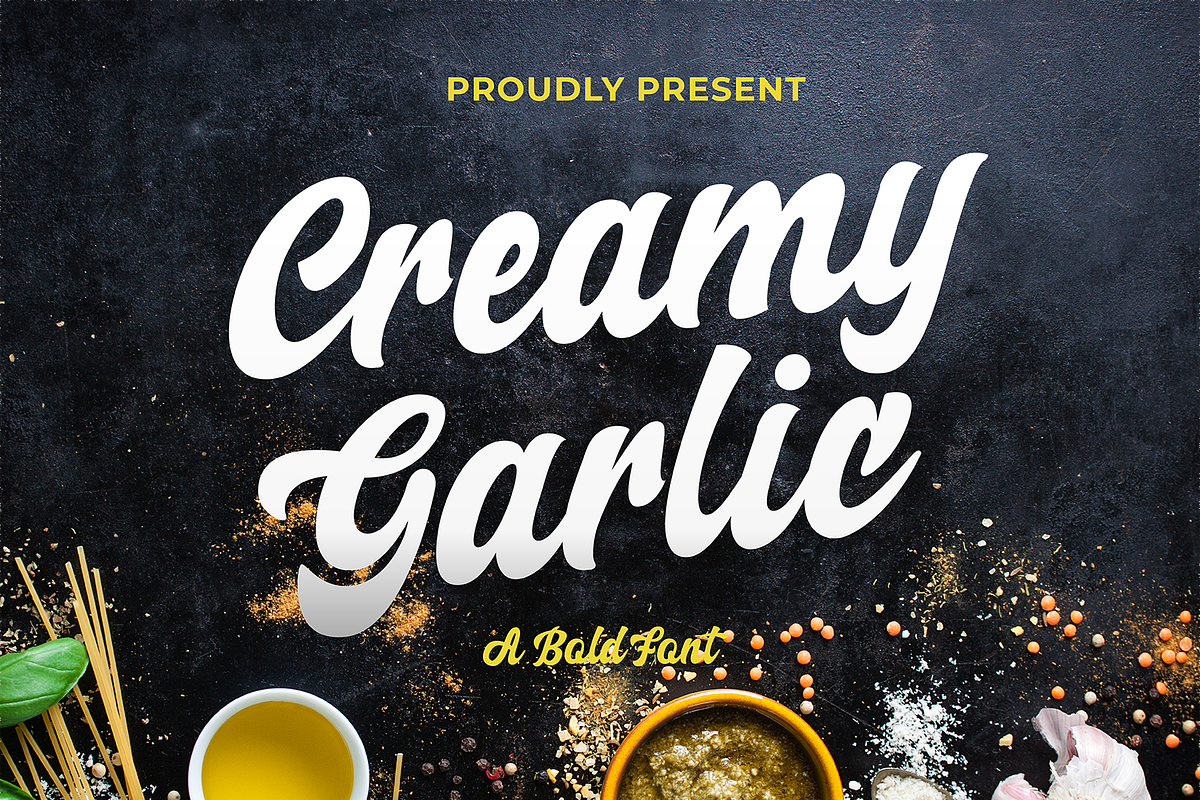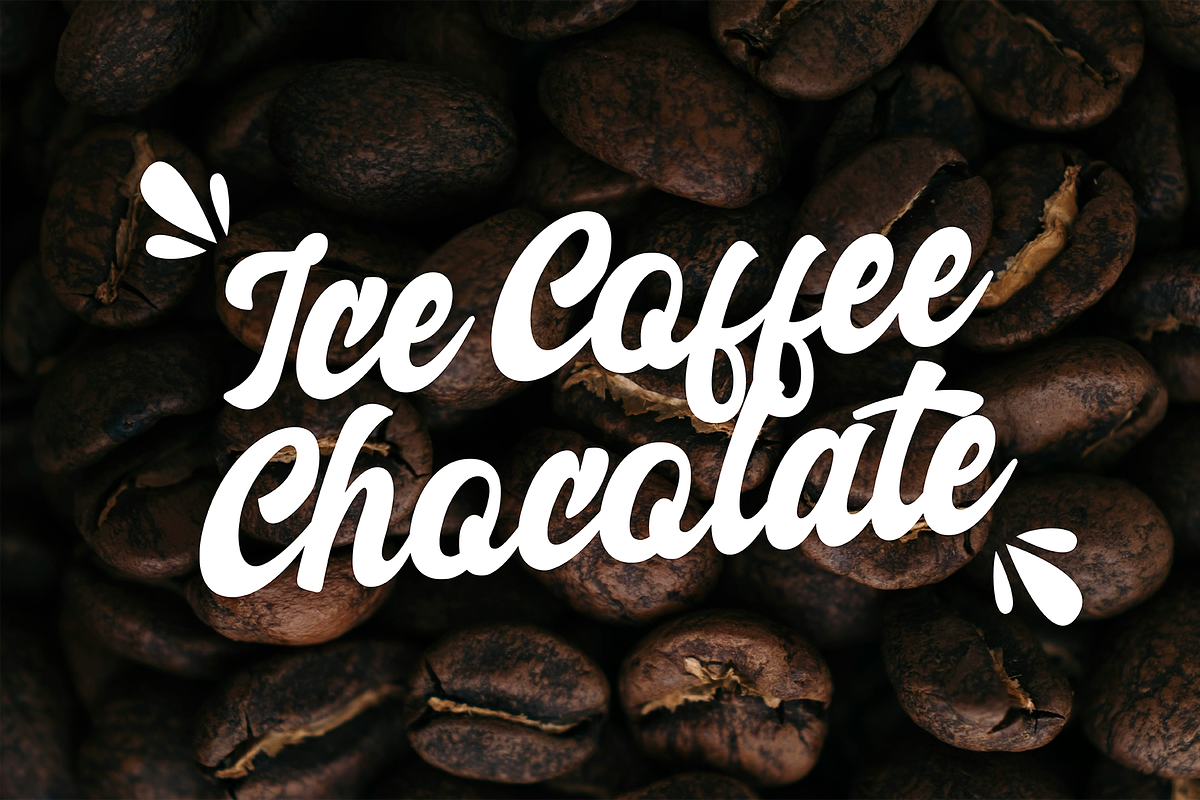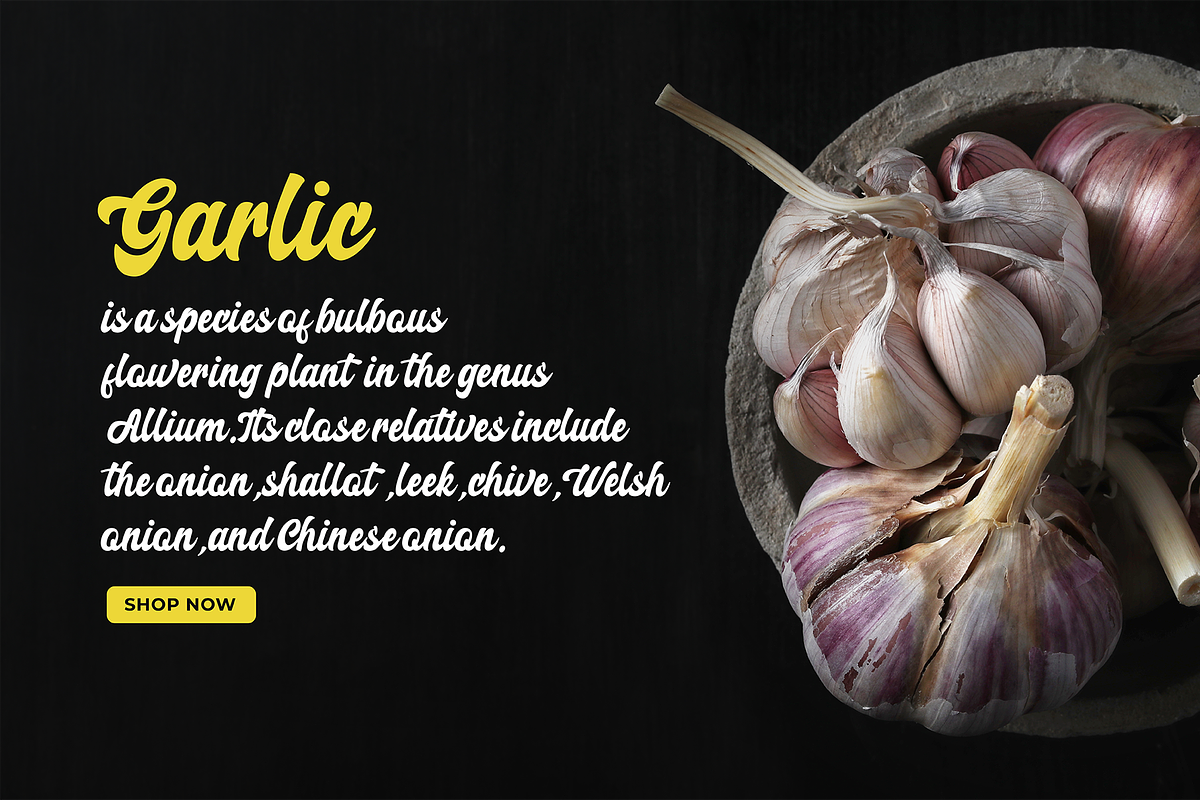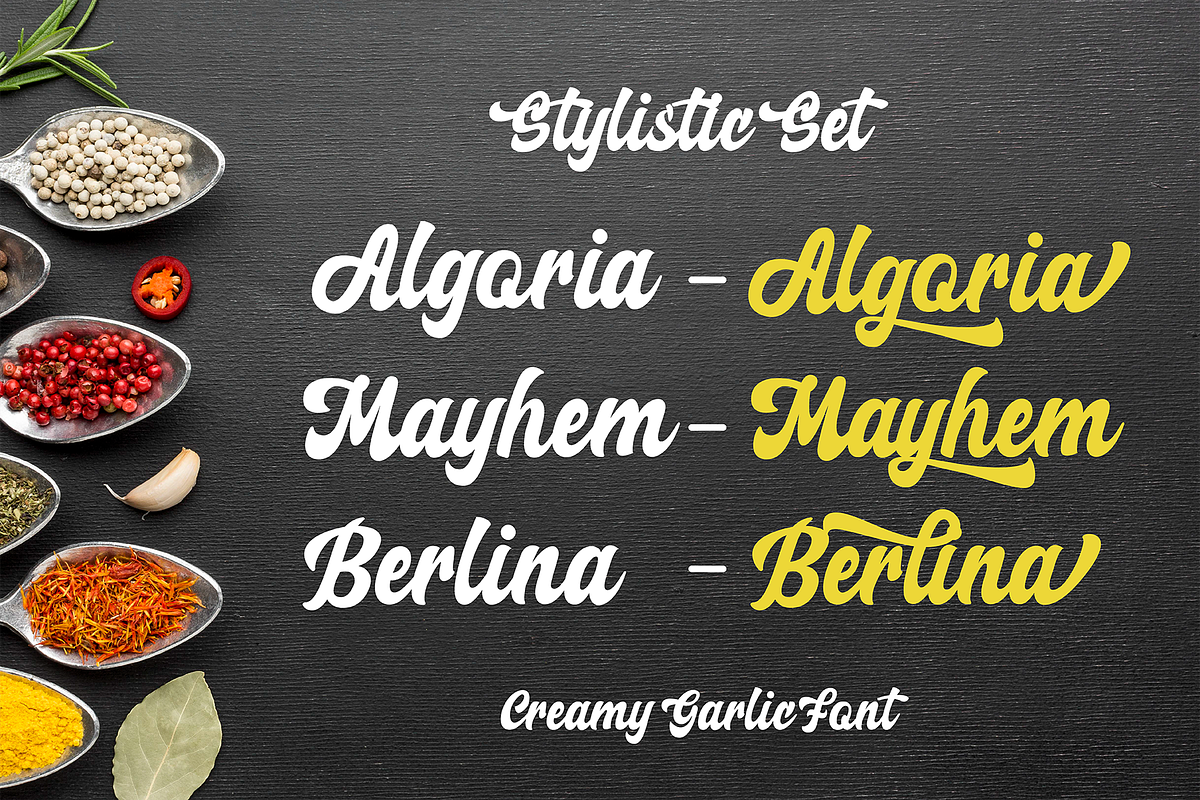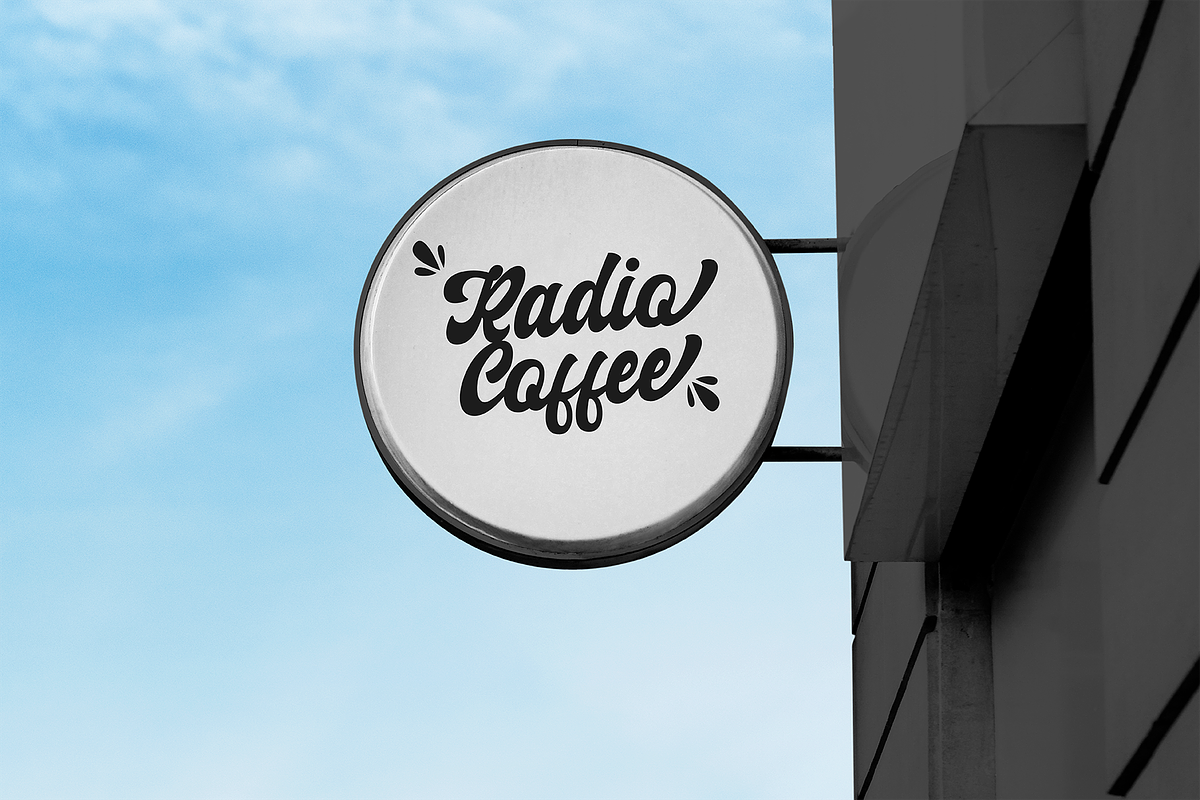
Creamy Garlic Script Font
Creamy Garlic Script is a tastefully elegant calligraphic script font. Its graceful strokes and flowing curves bring a touch of sophistication to your text. Perfect for invitations, cards, or any project that demands a blend of style and charm